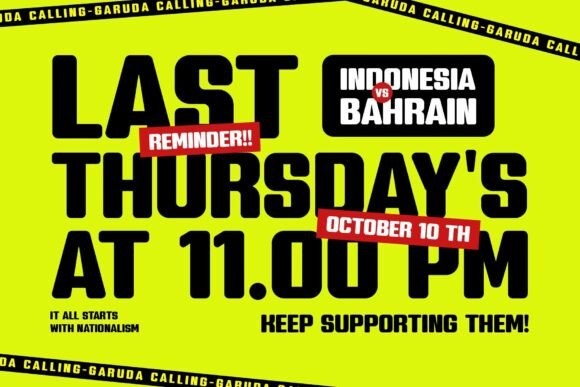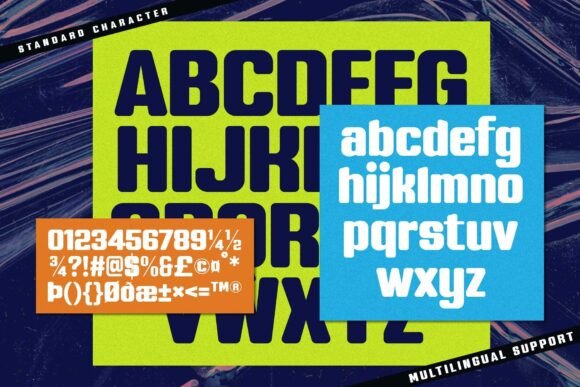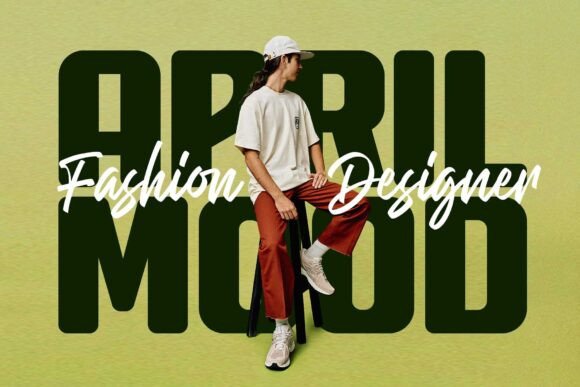
Introduction to Grand Bageur Font
Meet Grand Bageur, a font that combines sporty strength with elegance.
Its condensed, rounded-edge design makes it the perfect choice for logos, branding, and urban-style projects Whether youโre working on sports merchandise, posters, or headlines, Grand Bageurโs bold look in regular and slanted styles delivers a sleek, professional finish.
Key Features of Grand Bageur Font
Why Choose Grand Bageur Font?